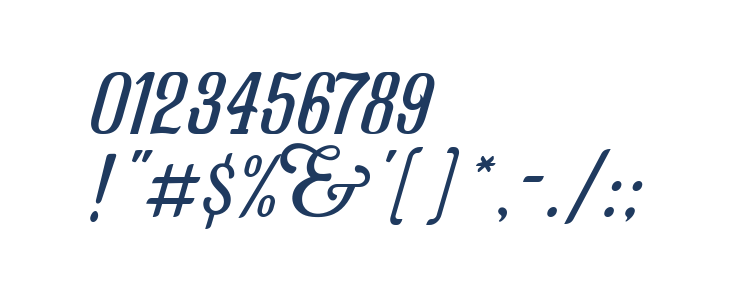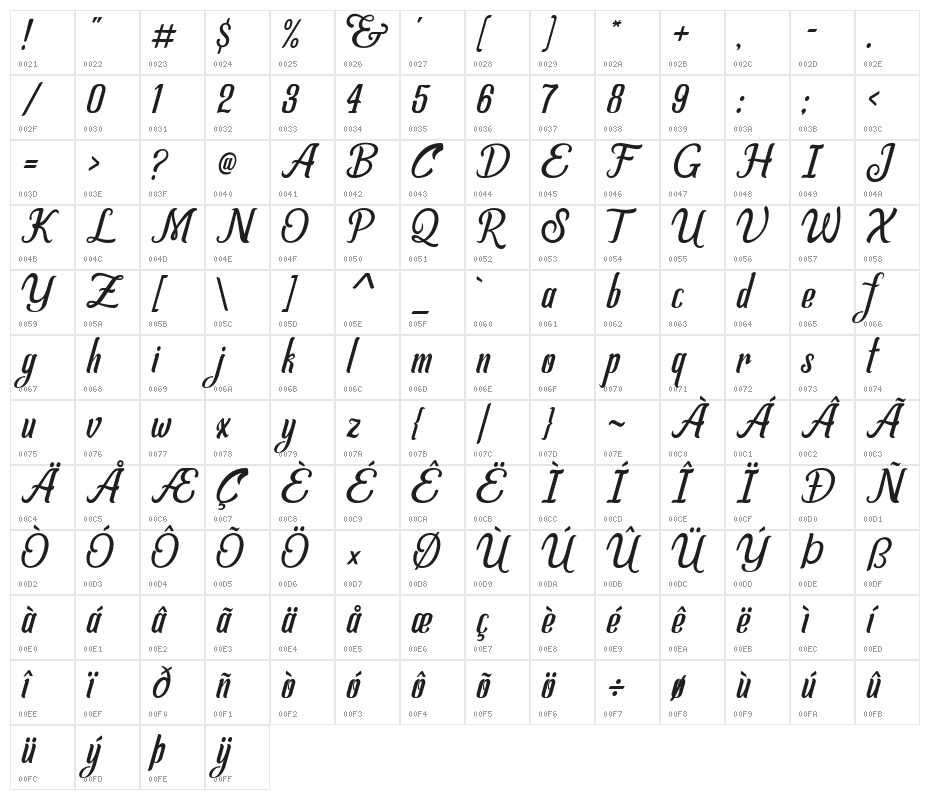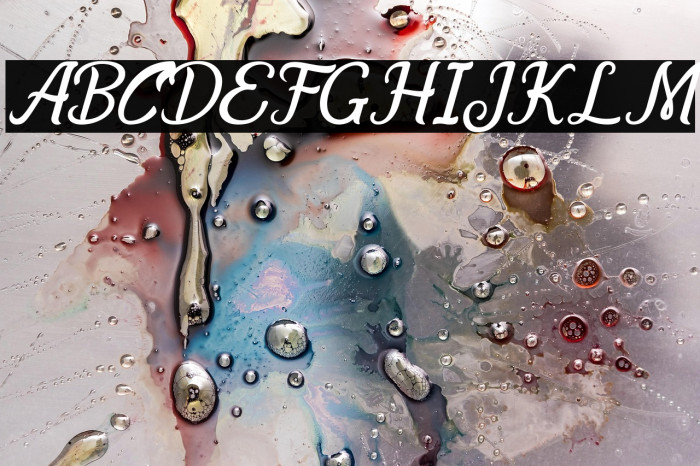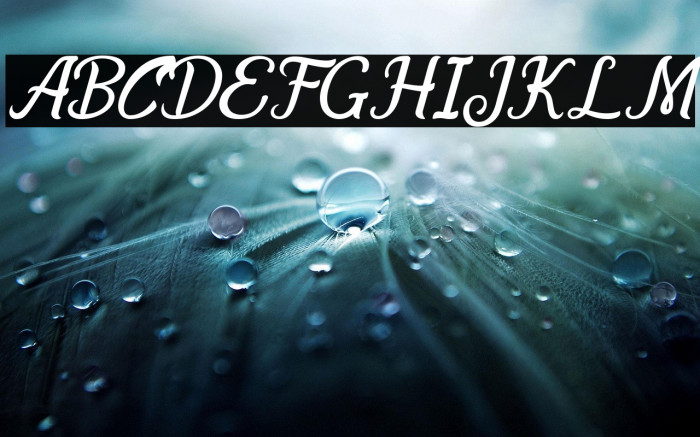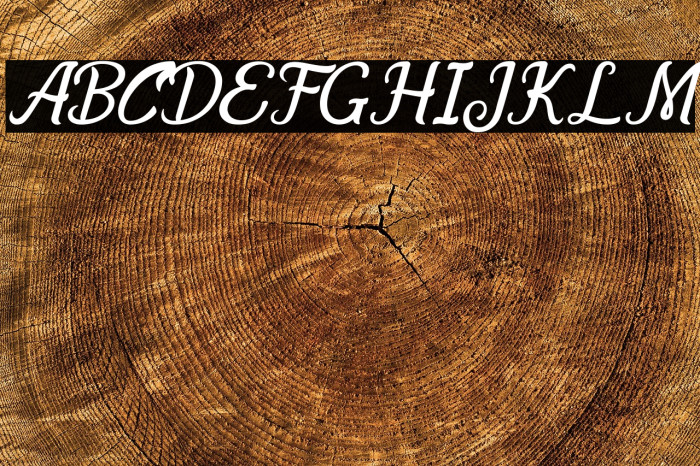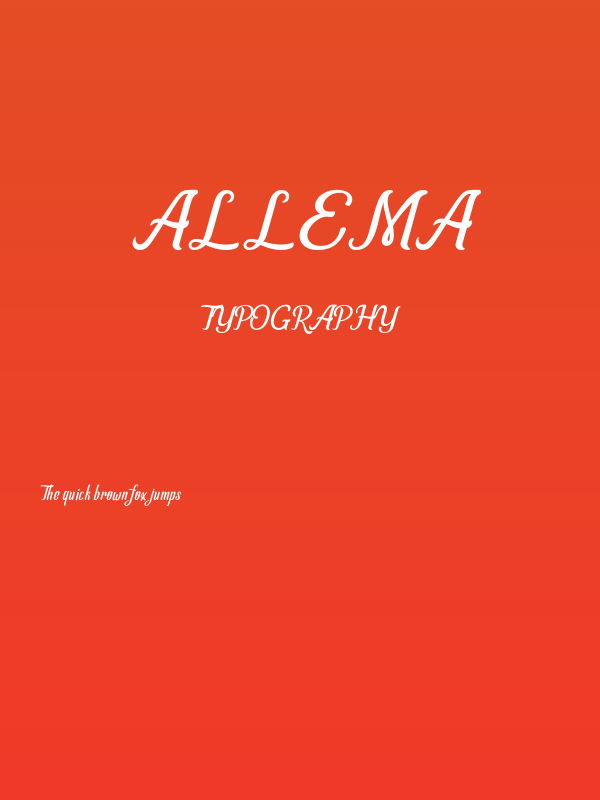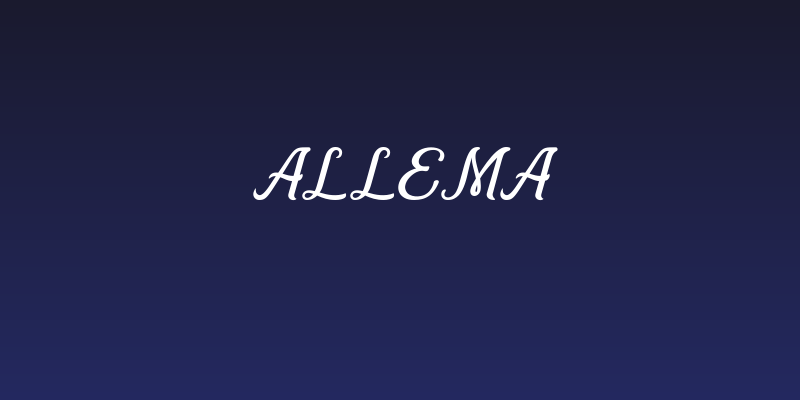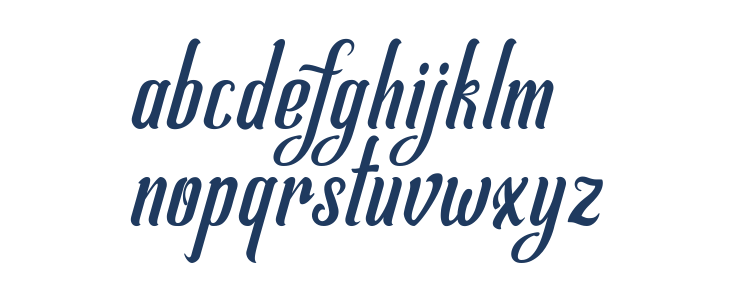
Allema Font
Allema Description
This font features a dynamic and elegant script style with a flowing, cursive appearance. The uppercase letters are characterized by their sweeping curves and decorative flourishes, giving them a sophisticated and artistic look. The lowercase letters maintain a consistent style, with smooth connections between characters, enhancing the script's fluidity. The numbers are bold and slightly slanted, matching the overall aesthetic. Special characters are designed with the same attention to detail, ensuring they blend seamlessly with the rest of the font. This typeface exudes a sense of elegance and creativity, making it suitable for various artistic and formal applications.
| Overall Style | Elegant, Artistic |
| Proposed Projects | Ideal for wedding invitations, greeting cards, branding projects, and elegant packaging designs. |